Toblerone Font
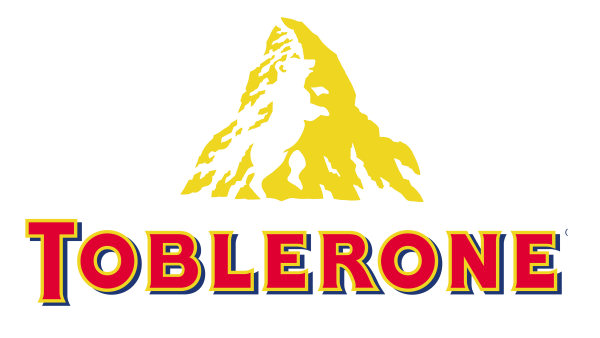
What Font is Toblerone?
The Toblerone font is a fully custom-designed typeface created exclusively for the iconic Swiss chocolate brand. Known as Tobler, this multi-layered type family was commissioned by Bulletproof London to harmonize with Toblerone’s refreshed wordmark. The typeface includes three styles — Solid, Outline, and Shadow — which can be layered to emulate the brand’s instantly recognizable 3D logo effect. Since Tobler is proprietary and not publicly available, we’ve identified a free alternative font that captures the geometric, bold, mountain-inspired feel of the original Toblerone lettering.
About Toblerone
Toblerone is one of Switzerland’s most famous chocolate brands, first created in 1908 by Theodor Tobler and Emil Baumann. Its signature triangular shape was inspired by the Matterhorn and helped the bar stand out as a premium confection. The chocolate’s blend of honey and almond nougat quickly became a beloved treat worldwide. Over time, the brand adopted its distinctive red-and-yellow logo, which reflects both Swiss heritage and the chocolate’s iconic silhouette. Today, Toblerone remains a global favorite, instantly recognized for its unique shape, bold packaging, and unmistakable taste.